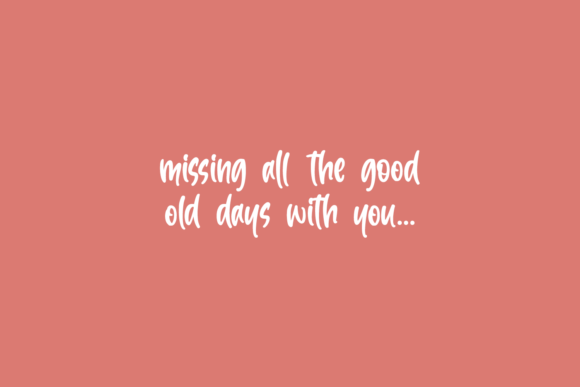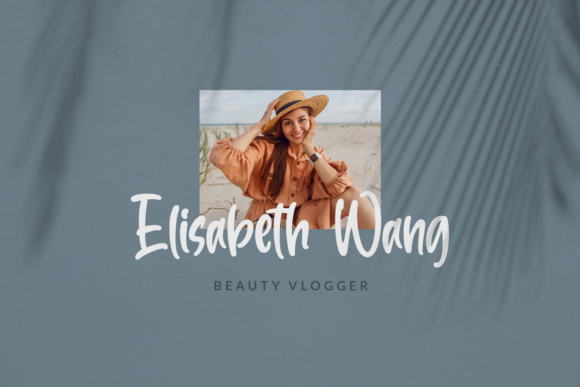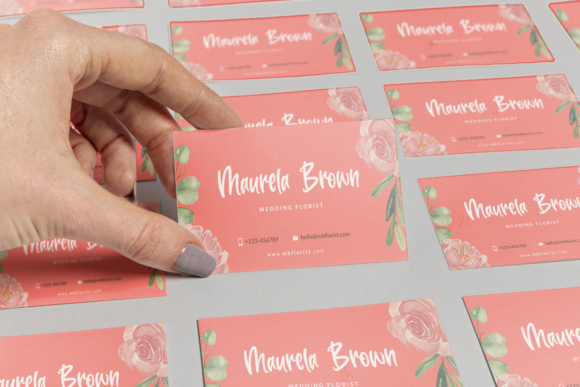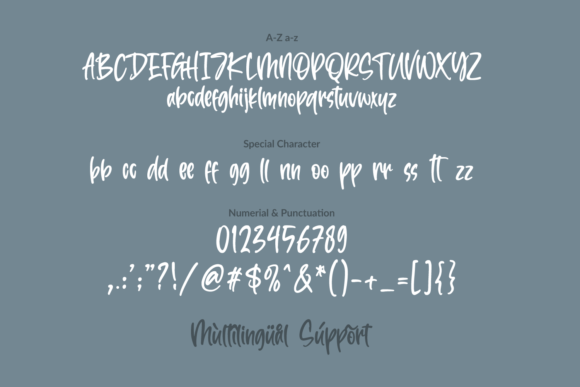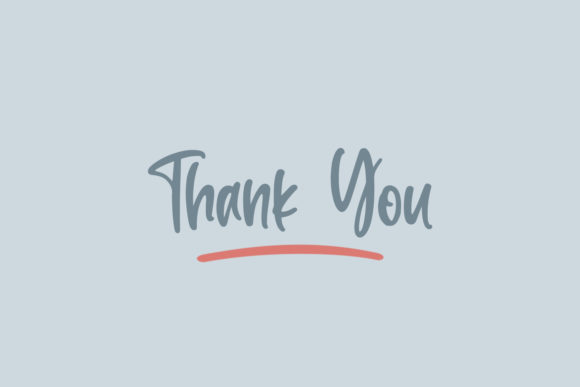
When Words Take on a Life of Their Own
We’ve all been there – staring at a blank page, searching for the perfect words to bring our design to life. It’s in these moments that we need a little inspiration, a dash of creativity, and a whole lot of character. For designers, finding the right font can be the difference between a decent design and a truly memorable one. And that’s where the Back to December Font comes in – a charming, brushed handwritten font that’s equal parts effortless and elegant.
With its casual, trendy style, the Back to December Font is the perfect addition to any design project. Whether you’re working on a blog post, a social media campaign, or a branding project, this font is sure to add a touch of personality to your work. Its versatility makes it a valuable tool for designers of all levels, and its unique character is sure to set your designs apart from the crowd.
Back to December Font Key Features
- Font Family: A custom-designed font family, created specifically for the song “Back to December” by Taylor Swift.
- Font Size: 1,024 glyphs, providing a comprehensive character set for everyday use.
- Unique Characteristics: The font features a mix of cursive and script elements, creating a unique aesthetic that blends elegance and playfulness.
Designer Review: Back to December Font
I recently had the chance to work with the “Back to December Font” and I must say, it’s a beautiful addition to any design project. ✨ The font’s elegant, cursive script style is perfect for creating a romantic and whimsical atmosphere. It’s ideal for wedding invitations, greeting cards, or any other project that needs a touch of sophistication.
- ✨ The font’s fluid lines and connected strokes create a sense of continuity and flow, making it easy to read and pleasant to look at.
- ✨ The font comes in a range of weights, from light to bold, giving designers the flexibility to choose the perfect style to suit their project.
- ✨ The font is highly legible, even at smaller sizes, making it perfect for body text or smaller design elements.
However, there are a few limitations to consider. ⚠️ The font may not be the best choice for projects that require a more modern or edgy look. Additionally, the font’s cursive style can make it difficult to read at very small sizes or in certain font combinations.
Overall, I’m impressed with the “Back to December Font” and would highly recommend it to designers looking for a elegant and sophisticated script font. With its beautiful design and range of weights, it’s a great addition to any design project.
The Back to December font is perfect for:
- Christmas and holiday designs
- Vintage-inspired designs and layouts
Getting the Most Out of It
To get the most out of the Back to December font, try:
- Pairing it with distressed textures and patterns